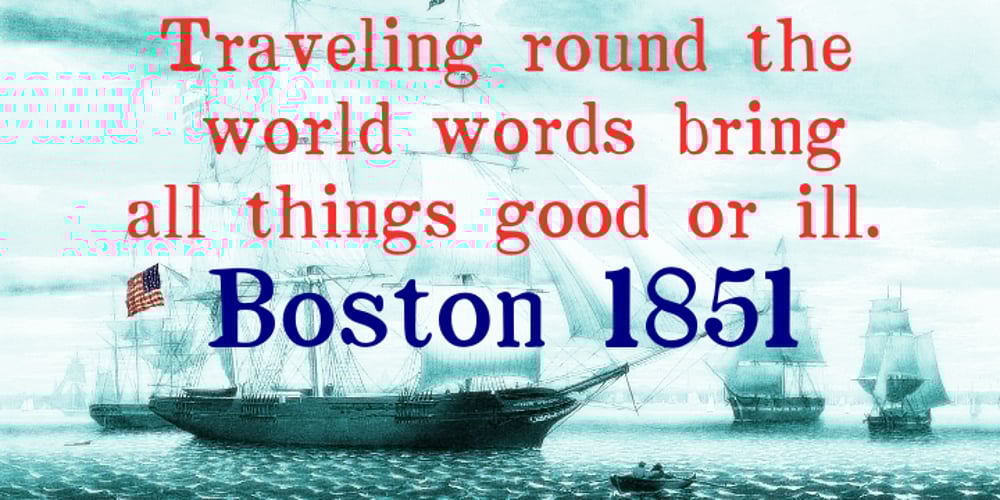
Boston 1851 Font Family was designed by Shane Brandes and published by Proportional Lime. Boston 1851 contains 1 styles and family package options. Boston 1851 is based on a stereotype used by Wier and White, Printers of Boston, that was created by the New England Stereoype Foundry under the auspices of Hobart and Robbins, also of Boston. This particular font has a nice strength combined with a fullness that lends to good legibility especially in smaller sizes. The italic version has a wonderful movement to it and also is extremely legible in fine print, perhaps, therefore not the best choice for fine print you do not want read.